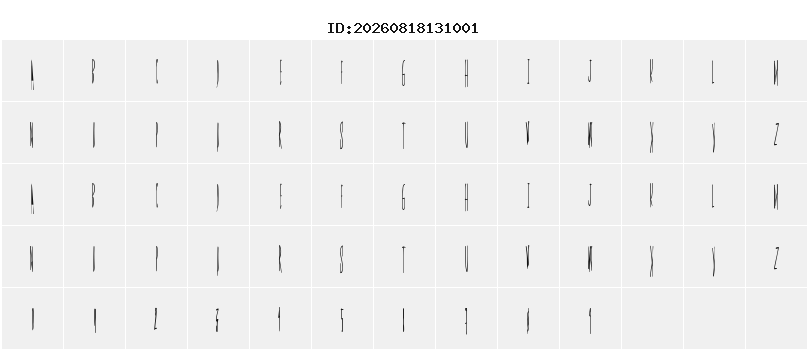
• Font Name: SmokingPistols
• Full Font Name: SmokingPistols
• Version: Version 1.00 April 21, 2014, initial release
• Designer: Xerographer Fonts Max Infeld
• Manufacturer: Xerographer Fonts
• Description: Made at Xerographer Studios in Ojai,CA
About SmokingPistols.ttf
SmokingPistols.ttf is a modern, elegant sans-serif font designed for ultimate readability and visual harmony. Perfect for branding, headlines, web design, and print materials.